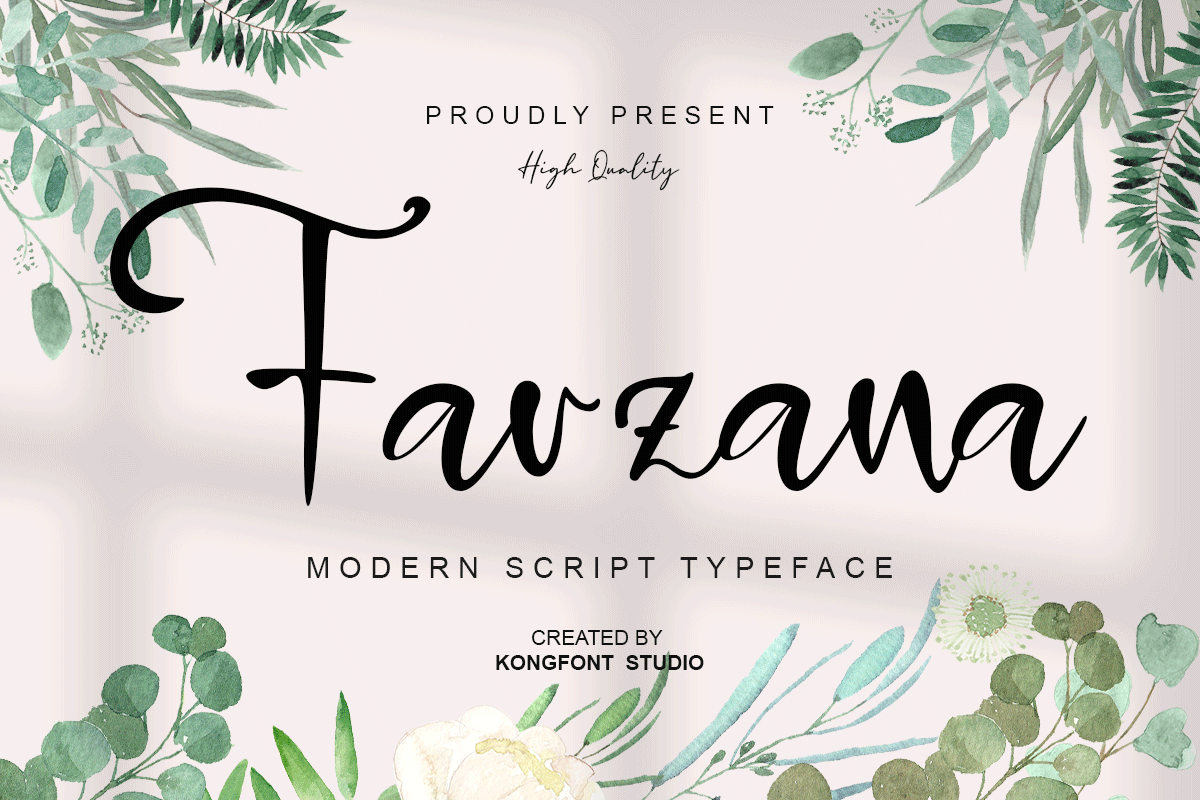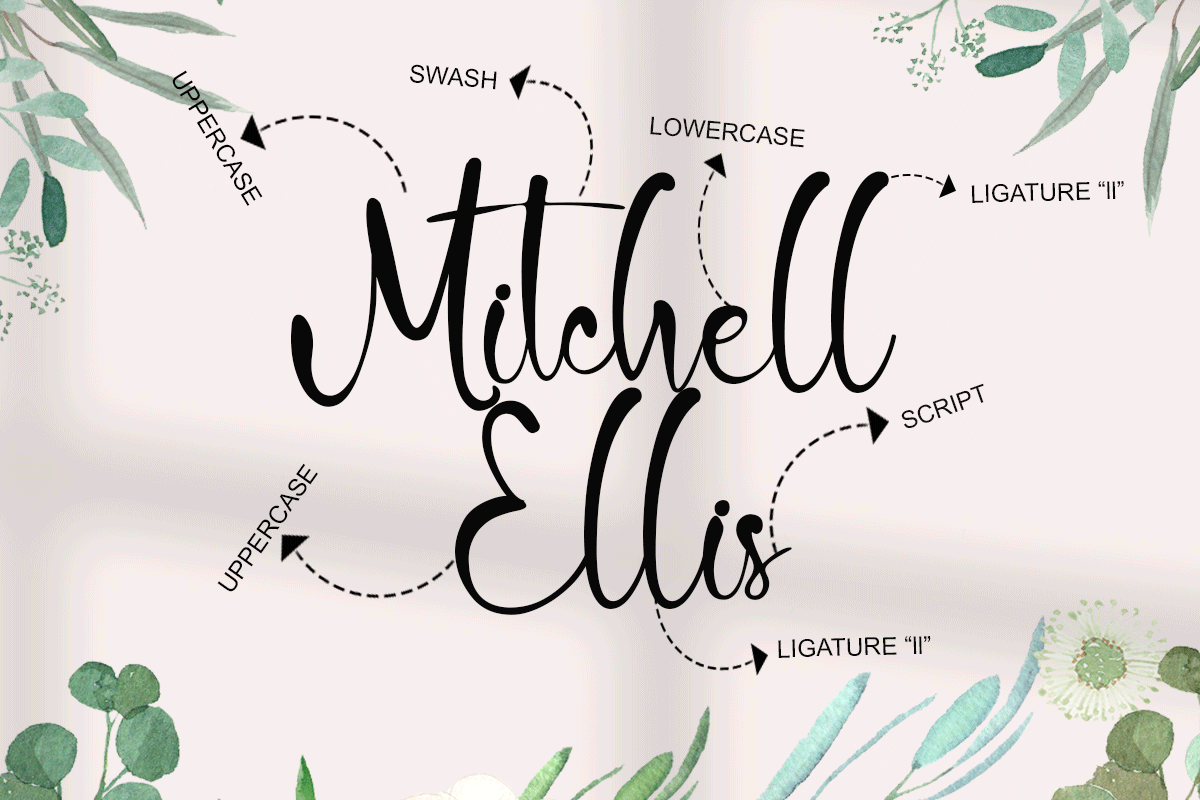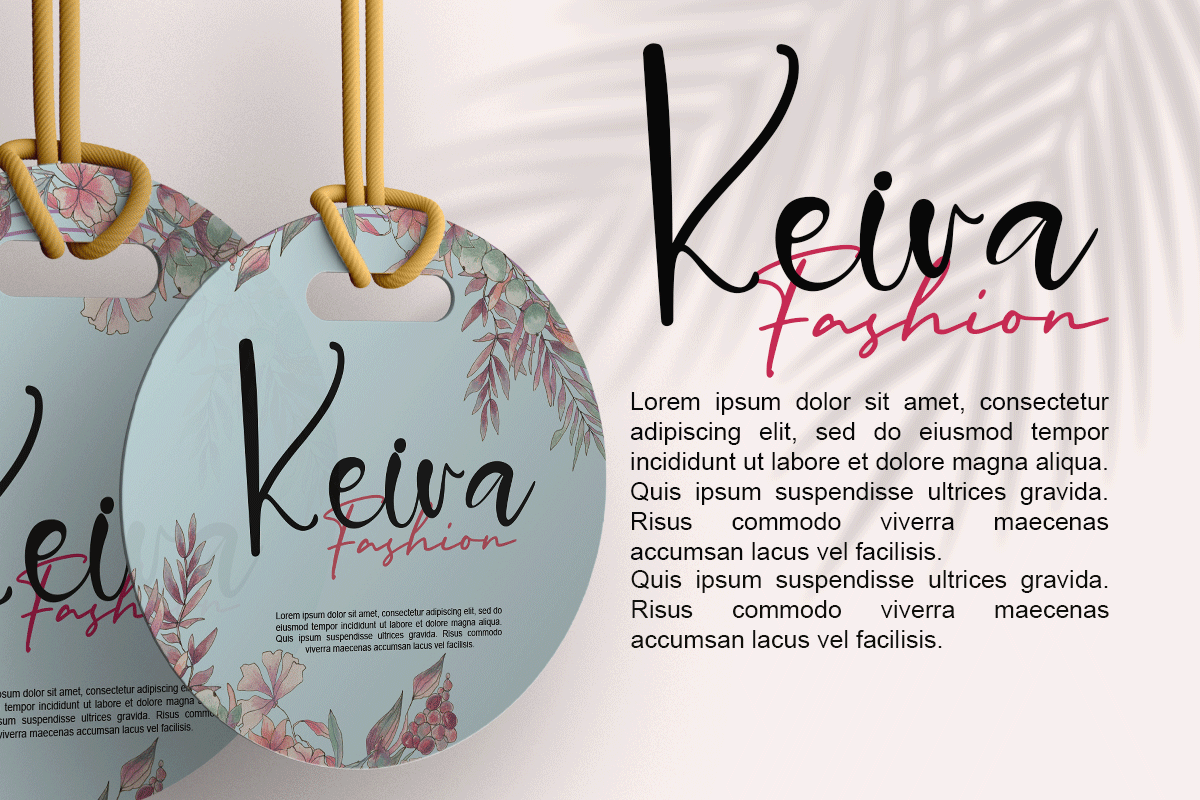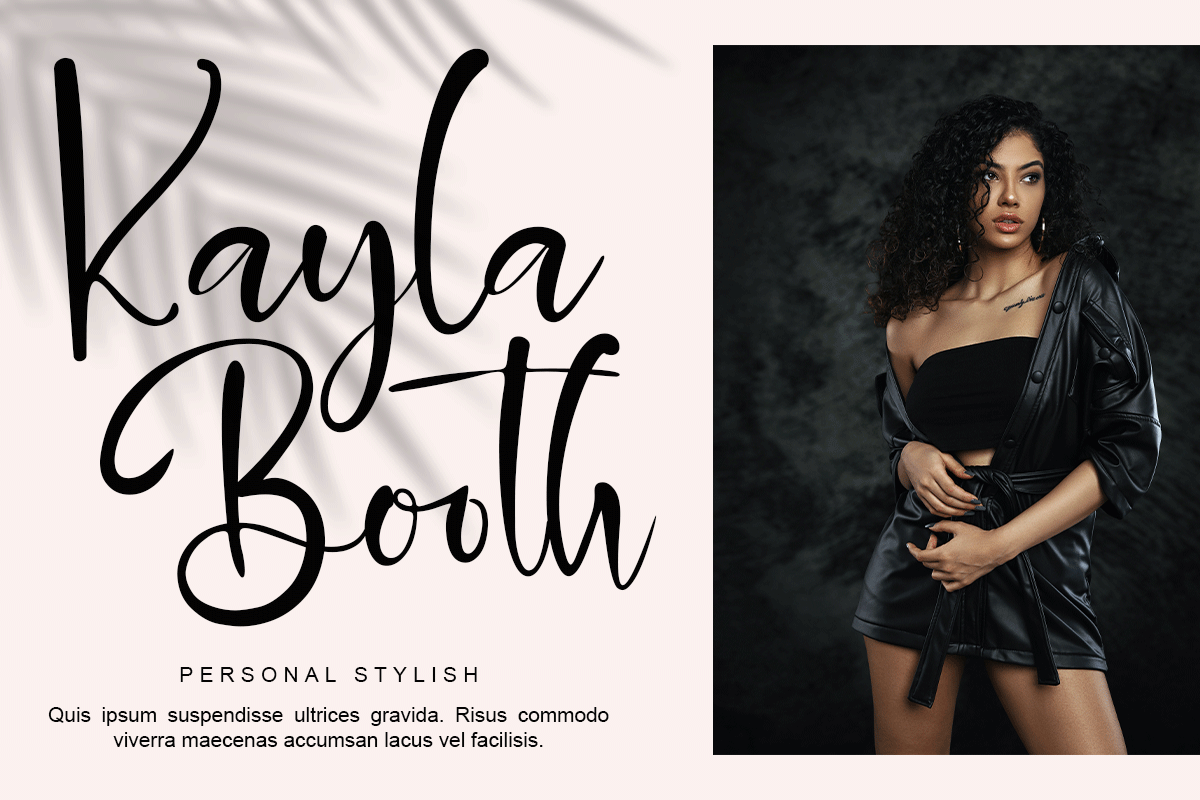
Farzana Free Font
Discover the charm of Farzana Free Font, a contemporary and whimsical handwritten script font. Designed to cater to both crafters and designers, each letter boasts a distinct and delightful flair that injects life into your designs. Unveil a world of creativity as Farzana’s unique and captivating touch breathes vibrancy into your projects. This free typeface was designed by a talented Kong Font. If you like it don’t forget to check out the full version.